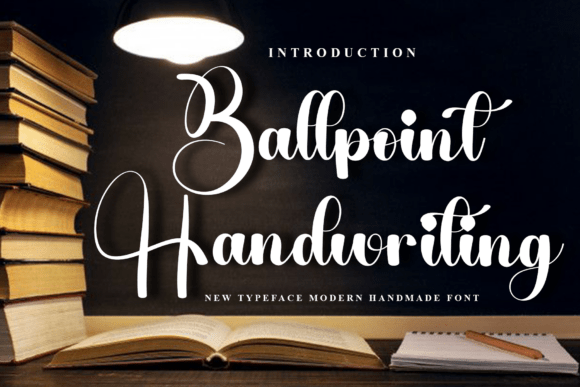
Where Words Become Art
Have you ever sat down with a cup of coffee, a blank page, and a pen, feeling the ink flow onto the paper as your thoughts come to life? For many of us, handwriting is more than just a means of communication – it’s a form of self-expression and artistry. But what if you could capture the essence of that handwritten charm in your digital designs?
Enter the Balpoint Handwriting Font, a modern script font that embodies the elegance of personal penmanship. With its fluid lines, stylish alternates, and full glyph set, this font is perfect for designers who want to add a touch of sophistication and natural charm to their work. Whether you’re creating branding materials, wedding stationery, or packaging, the Balpoint Handwriting Font is a valuable tool in your design arsenal.
Key Features of Balpoint Handwriting Font
- Unique Handwritten Style: Balpoint Handwriting Font offers a distinctive, elegant, and professional handwritten style that is perfect for various applications, including invitations, certificates, and business documents.
- Professional Touch: Balpoint Handwriting Font is designed to add a touch of sophistication and elegance to any document, making it an excellent choice for formal and business-related projects.
- Legibility and Readability: The font’s unique design ensures excellent legibility and readability, even at smaller font sizes, making it perfect for use in various applications, including body text and headings.
Review of Balpoint Handwriting Font
Overall, I think the Balpoint Handwriting Font is a great choice for designers looking to add a touch of elegance to their work. ✨ The font is highly legible, making it perfect for body text and paragraphs. The letterforms are well-crafted, with a clear distinction between letters and a beautiful, flowing feel.
The Balpoint Handwriting Font is also highly versatile, with a range of weights and styles available. ✨ This makes it easy to customize to suit different design projects and moods. The font also includes a range of special characters and glyphs, which is a nice touch.
- Highly legible and clear
- Well-crafted letterforms
- Highly versatile, with a range of weights and styles available
- Includes special characters and glyphs
- May not be suitable for use in extremely small sizes, as the letterforms can become distorted ⚠️
- May not be the best choice for use in very formal or corporate design projects, as it has a more casual feel ⚠️
Overall, I think the Balpoint Handwriting Font is a great choice for designers looking to add a touch of personality to their work. While it may have some limitations, it’s a beautiful and highly legible font that’s perfect for a wide range of design projects.
The Balpoint Handwriting Font is ideal for creating invitations, greeting cards, and other handwritten-style designs. It can also be used to add a personal touch to digital documents, such as resumes and presentations.